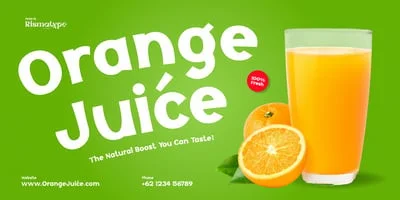
Megifera Indica Font
Megifera Indica Font is perfect for tropical resort branding, organic fruit company logos, botanical garden signage, natural wellness centers, eco-friendly product packaging, tropical restaurant menus, sustainable agriculture materials, exotic travel campaigns, and nature conservation projects. This refreshing typeface brings tropical vitality and natural abundance to both digital and print design applications.
Megifera Indica Font is exciting because it embodies the lush richness and exotic appeal of tropical nature, making it an exceptional choice for designers who want to evoke paradise and natural abundance with authentic botanical inspiration. Its organic letterforms and tropical character provide the perfect combination of natural beauty and contemporary functionality, ensuring your projects communicate freshness, sustainability, and exotic luxury that resonates with environmentally conscious audiences seeking natural authenticity.
The Megifera Indica Font family includes nature-inspired weight variations and botanical elements, featuring light, regular, and bold weights with complementary decorative flourishes and tropical accent marks. Each style maintains consistent organic aesthetics while offering flexibility for different natural and sustainable applications, allowing designers to create harmonious brand systems that reflect tropical paradise and environmental consciousness.
Whether you're designing for eco-brands, hospitality businesses, or wellness companies, Megifera Indica Font delivers authentic tropical appeal and natural sophistication that connects with audiences seeking sustainable luxury experiences. This premium typeface offers designers the organic beauty and exotic charm needed to create designs that communicate environmental responsibility, tropical elegance, and natural excellence effectively. The font's botanical character makes it perfect for branding, natural product packaging, and eco-friendly applications where tropical authenticity is essential. Download Megifera Indica Font today and cultivate your creative projects with genuine tropical sophistication and natural typography excellence that defines sustainable design.